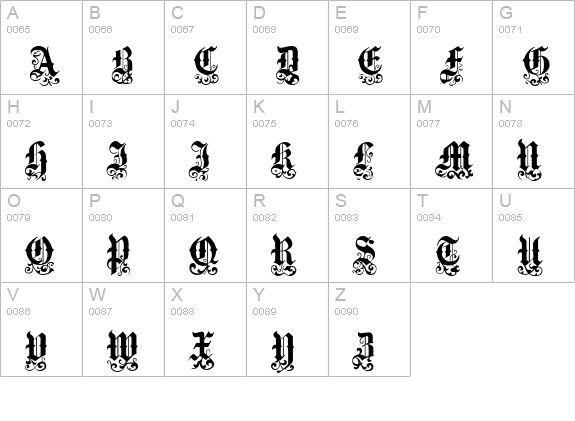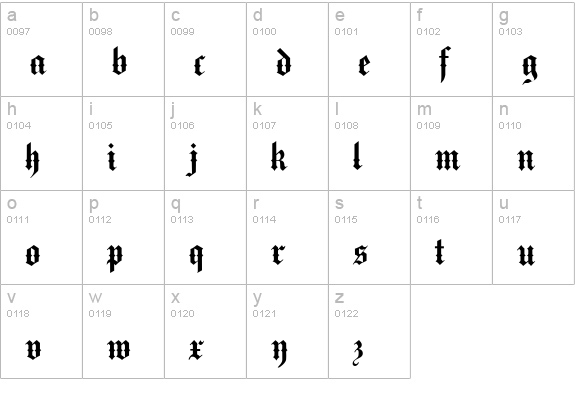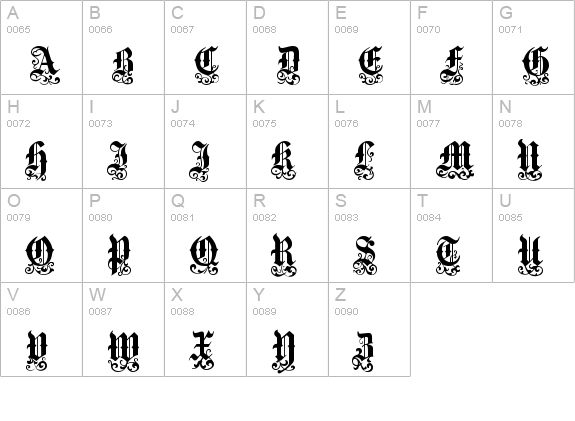
Medici Text Font Details
Medici Text font is a classic and elegant typeface that exudes sophistication and charm. Its timeless design features graceful serifs and a balanced proportion that makes it perfect for a wide range of projects. Whether you're working on invitations, branding, or editorial design, Medici Text font will elevate your work with its refined aesthetic. And the best part? Medici Text font is completely free to download at FontsMarket.com! This means you can add this beautiful typeface to your collection without any cost, making it a valuable resource for designers and creatives alike. Don't miss out on the opportunity to enhance your projects with the exquisite beauty of Medici Text font. Download it today and bring a touch of luxury to your designs.